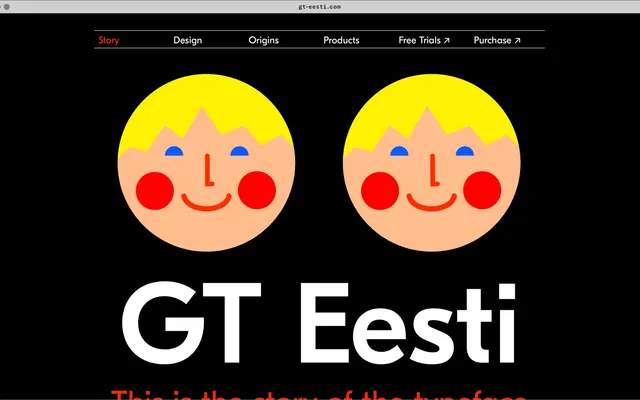
GT Eesti
Reto Moser's free interpretation of the Soviet geometric sans Zhurnalnaya Roublennaya, split into Text and Display cuts for Latin and Cyrillic.
A geometric sans by Reto Moser, released in 2016 and offered in 28 styles. Grilli started from books printed in Soviet-occupied Estonia and developed Zhurnalnaya Roublennaya into separate Display and Text subfamilies for Latin and Cyrillic. The Text cut handles longer reading while the Display cut keeps the sharper geometric quirks for posters and headlines.
Grilli describe it as a free-spirited interpretation of the Soviet geometric sans serif Zhurnalnaya Roublennaya, beginning from books printed in Soviet-occupied Estonia and developed into Display and Text subfamilies for Latin and Cyrillic.